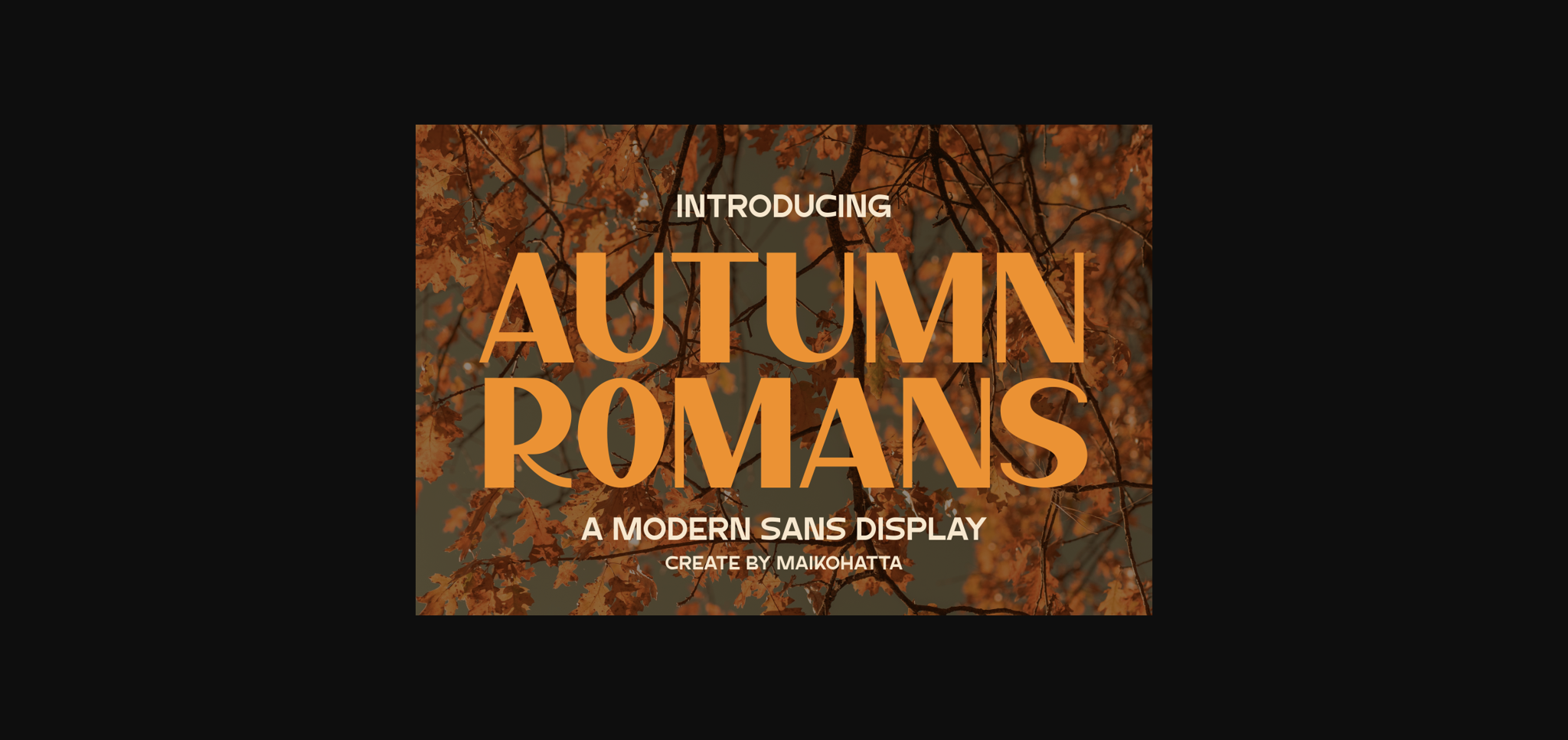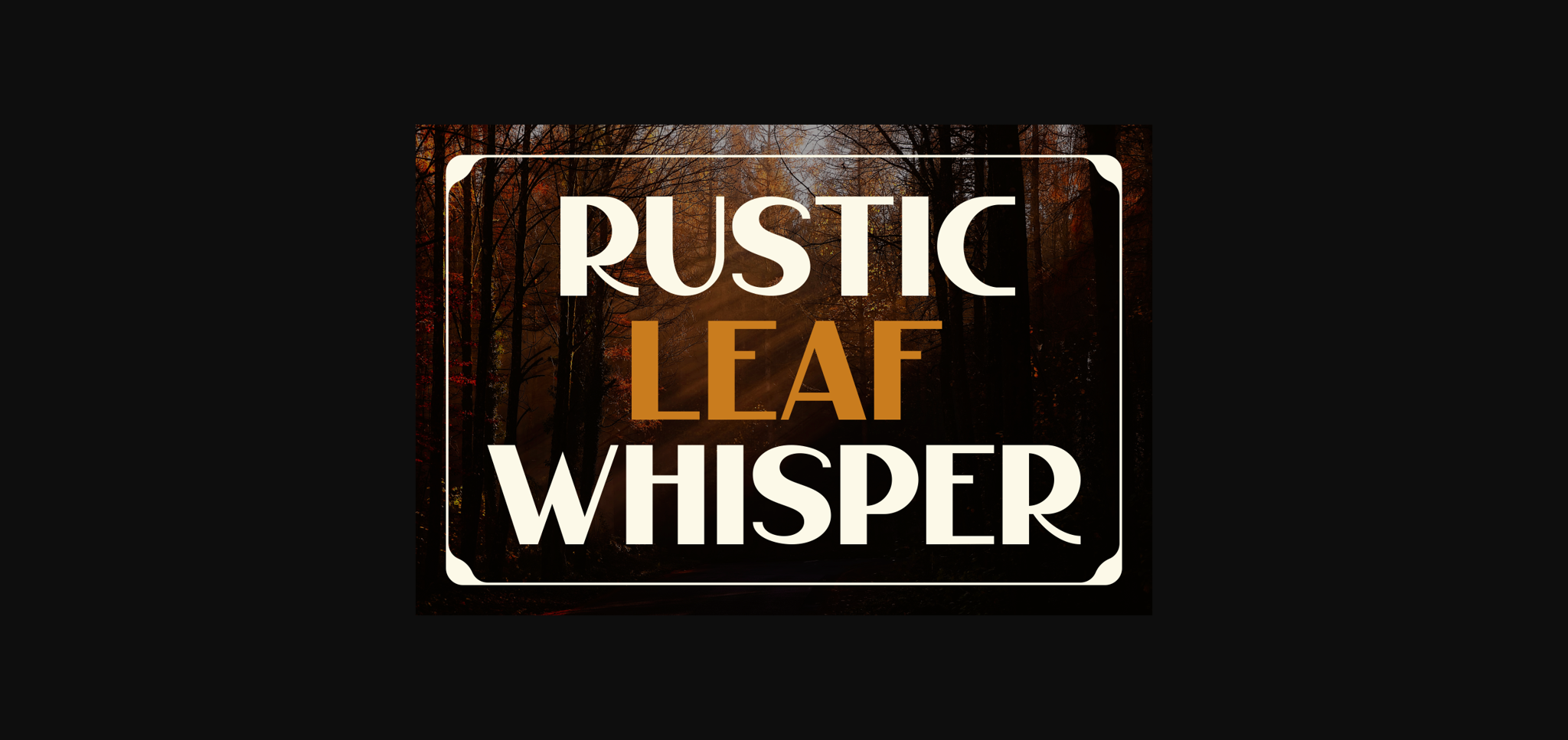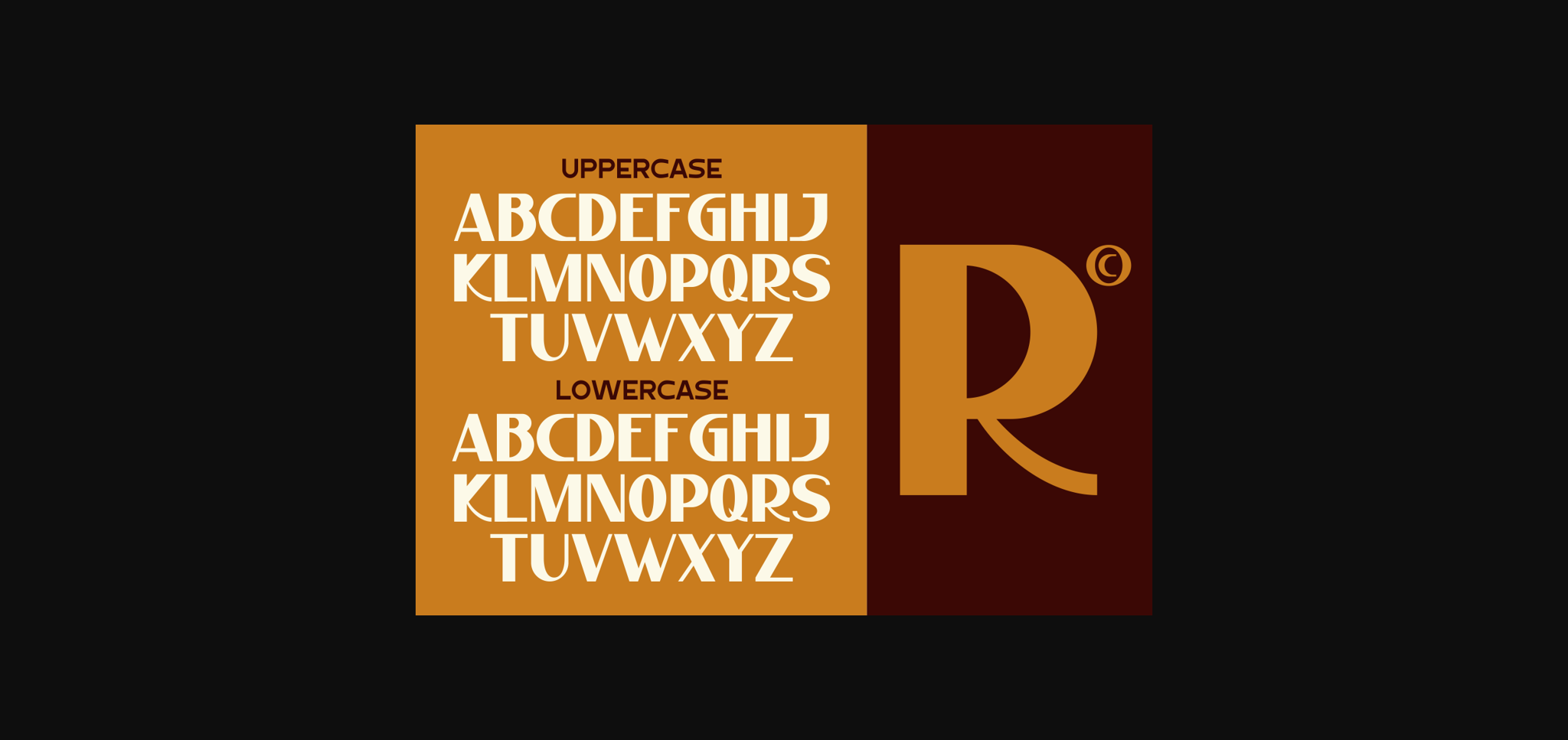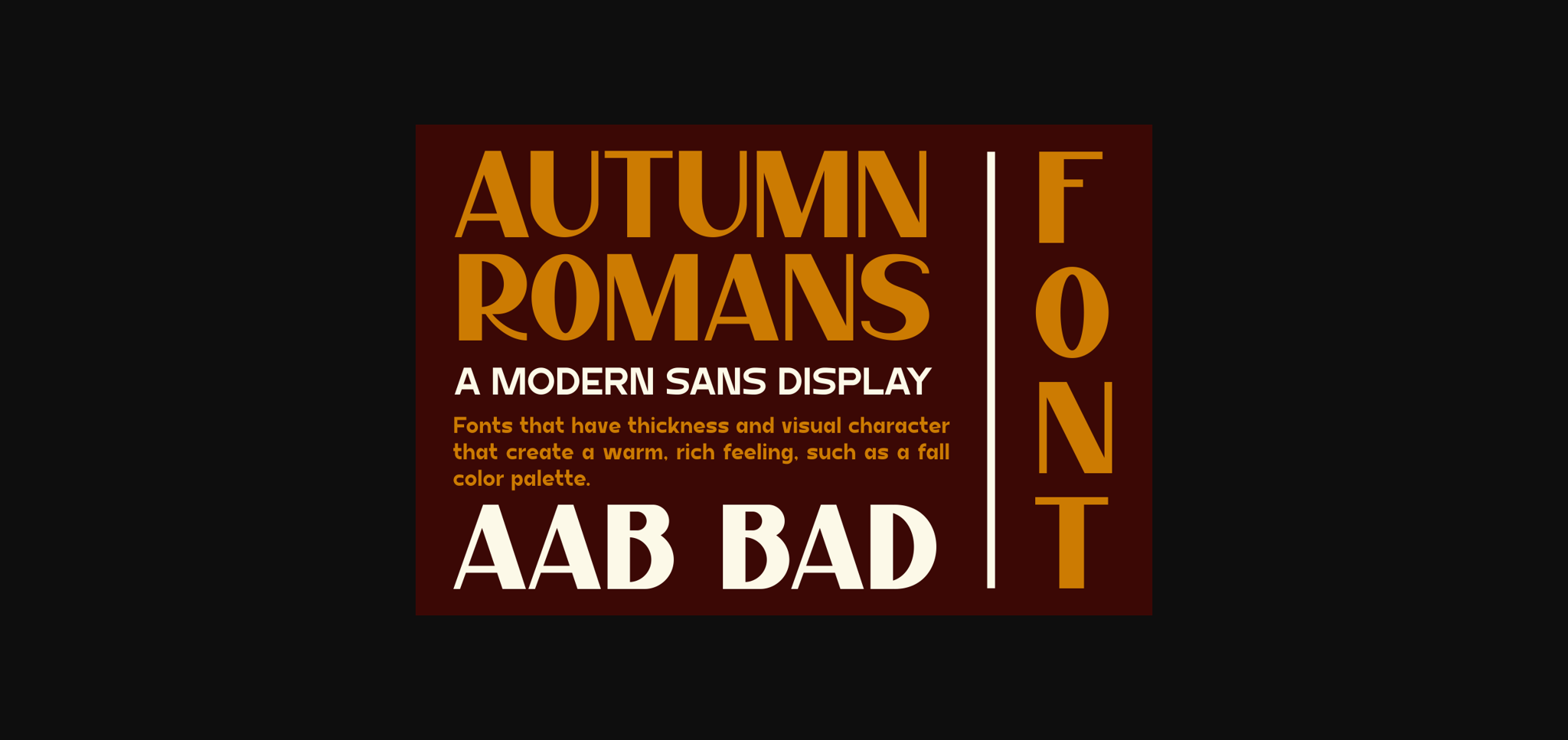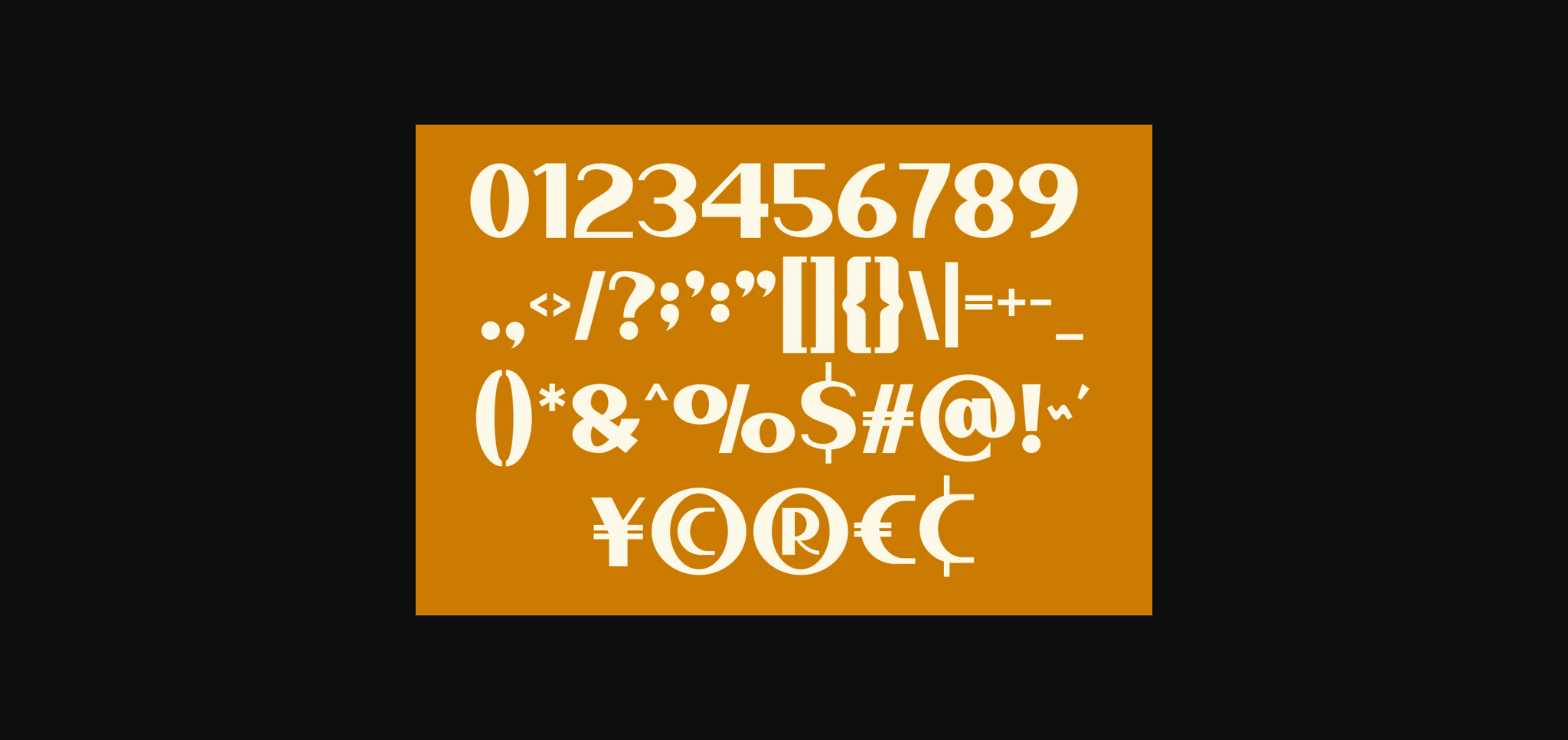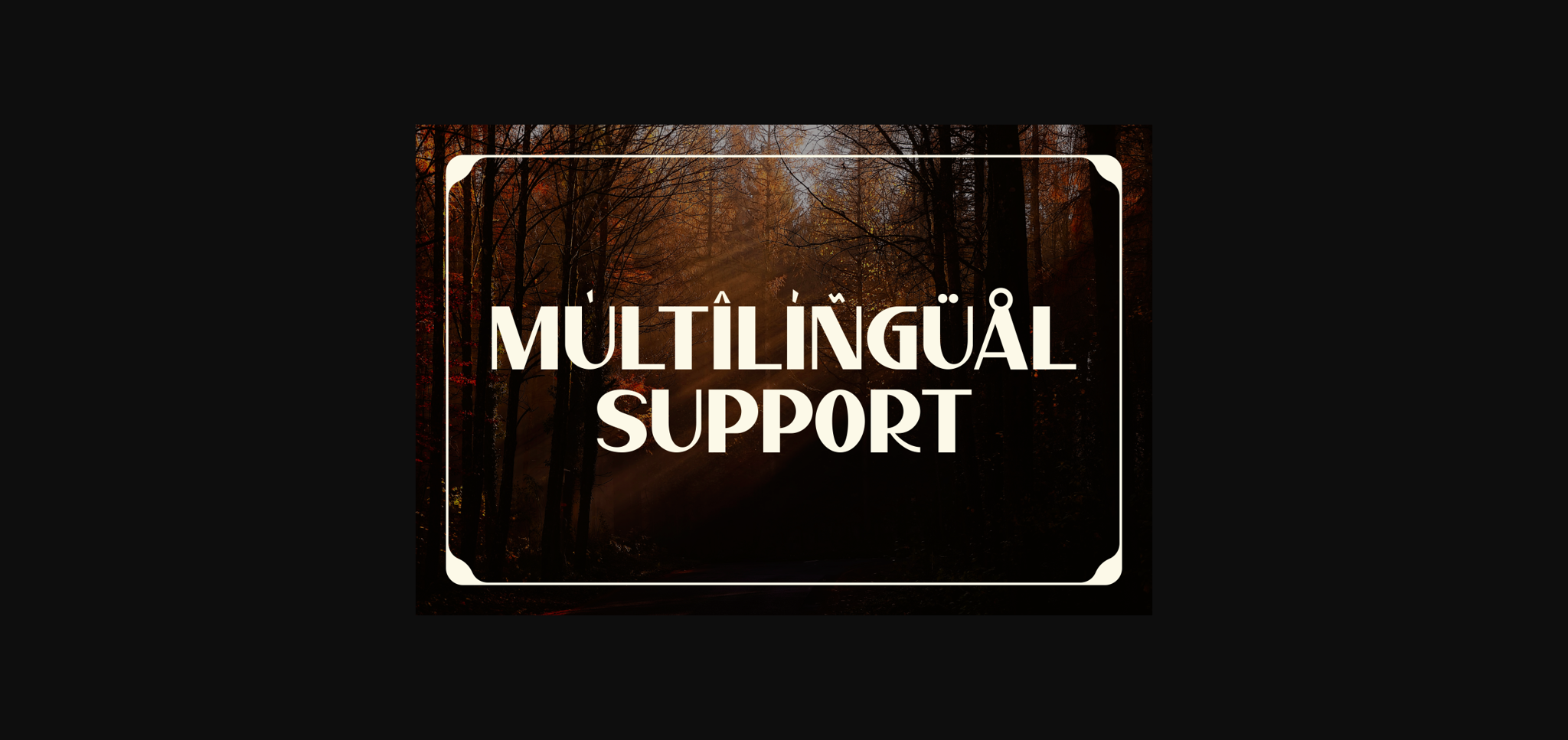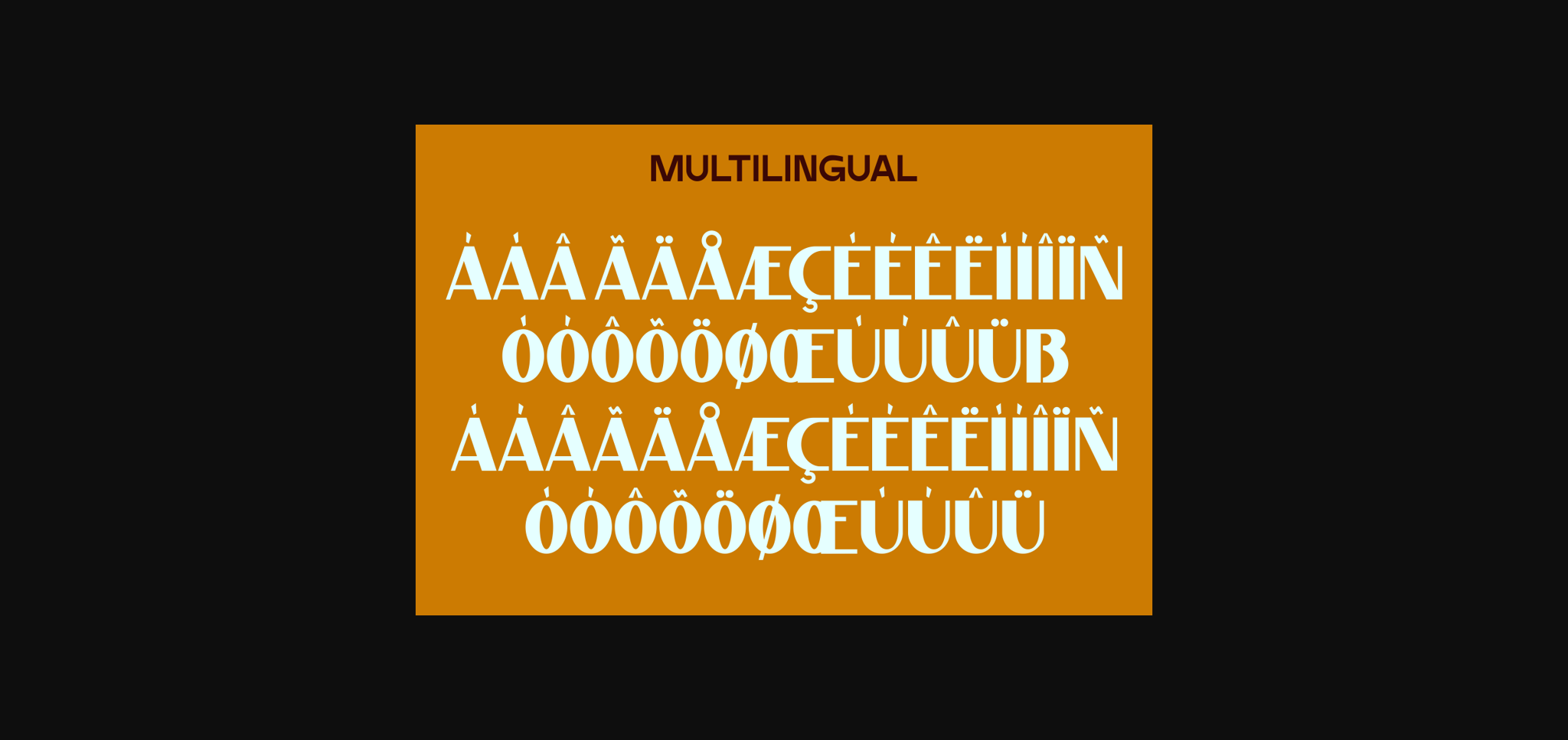
Autumn Romans Font
About Autumn Romans Font
This font features a style that creates a warm sense of nostalgia and recalls the natural wonder as leaves change colors. Delicate lines and gentle curves add dimension to the letter characters, creating an impression of softness and tranquility. Autumn Romans is highly suitable for projects that aim to depict the beauty and charm of the autumn season.